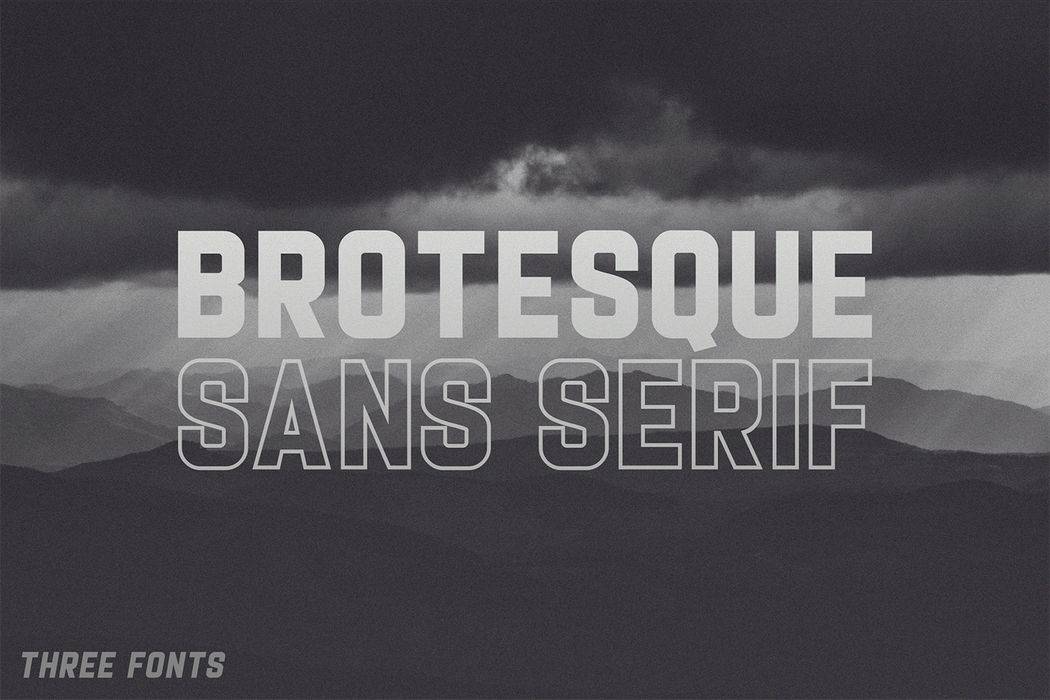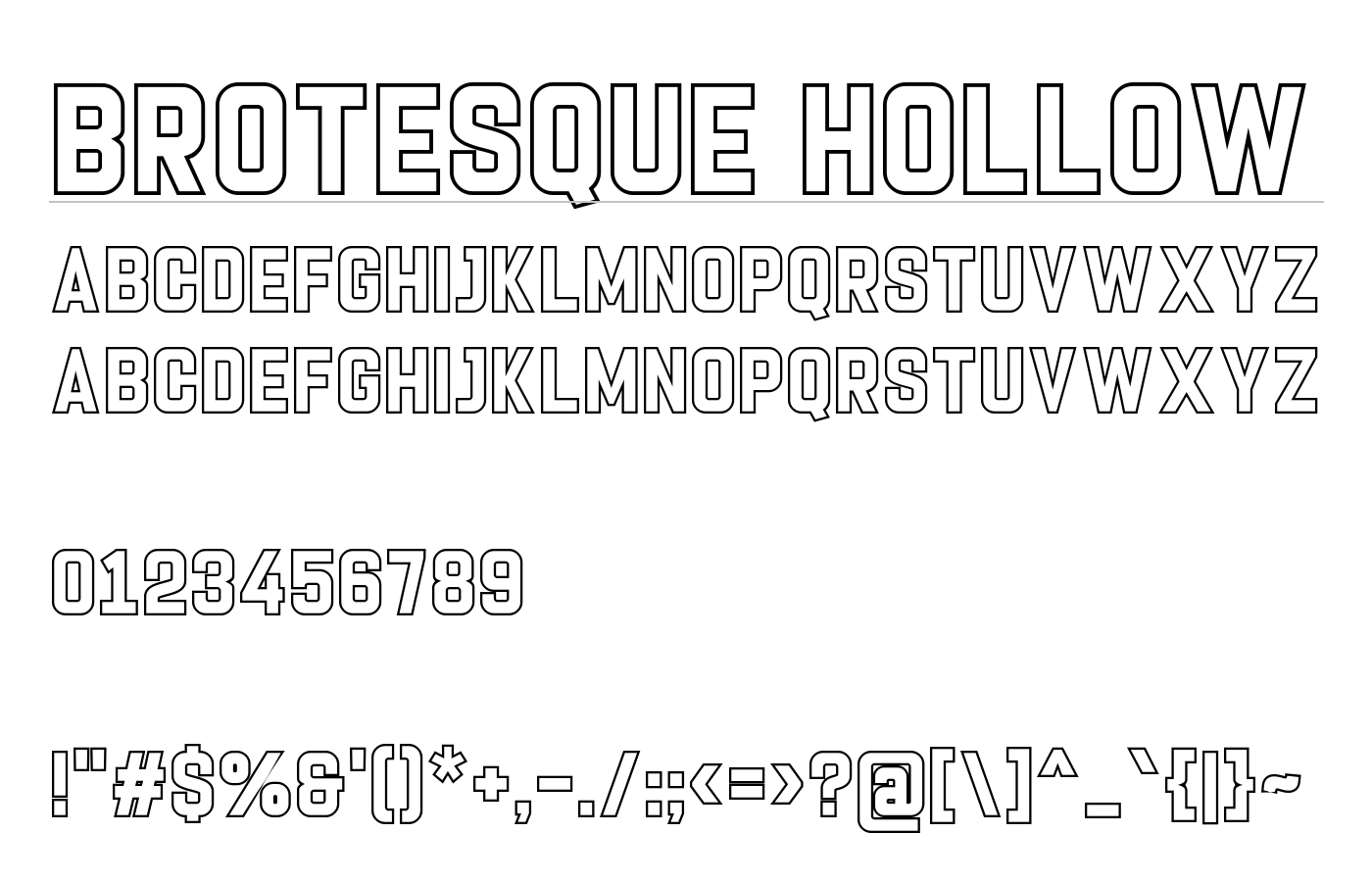
Brotesque Hollow is a bold, condensed sans serif font with a modern, industrial feel. Its hollow, geometric letterforms and uniform stroke widths give it a strong yet open appearance, making it ideal for impactful headlines, logos, and display uses where clarity and style are key. This font works well in contemporary branding and editorial design that requires a confident, striking typographic voice.
Brotesque Font
About Brotesque Font
| Designer | Wahyu Sa |